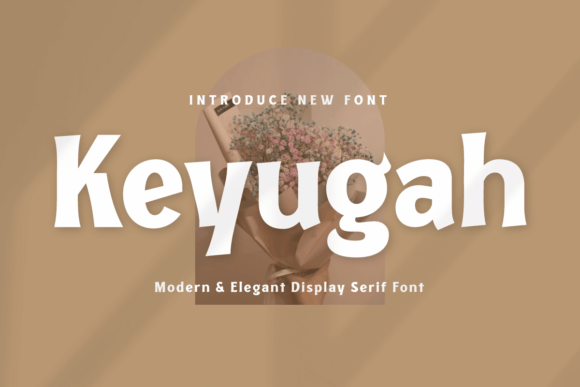
Within the realm of typography, Keyugah Font reigns supreme as a serif font of unparalleled grace and distinction. Its very essence evokes an aura of elegance, lending a touch of sophistication to any creative endeavor it adorns. Whether you seek to craft exquisite wedding invitations that exude timeless romance or aspire to elevate your branding materials with a touch of understated luxury, Keyugah stands as your steadfast companion.
This classic serif font possesses an inherent versatility that seamlessly adapts to a myriad of design projects. Its clean lines and refined serifs render it effortlessly readable, ensuring clarity and impact in both print and digital realms. With Keyugah as your chosen font, your words will dance across the page with effortless grace, captivating your audience and leaving an indelible mark on their minds.
Keyugah's enduring appeal lies in its ability to transcend fleeting trends and remain a timeless classic. Its enduring beauty ensures that your creations will stand the test of time, retaining their elegance and relevance for years to come. Embrace Keyugah and embark on a journey of creative expression that knows no bounds.
The modern curriculum vitae, a gateway to professional success, demands a font that reflects both your individuality and your aspiration for excellence. Keyugah rises to this challenge, imbuing your resume with an air of sophistication that commands attention. Its clean lines and understated elegance create a visually appealing document that showcases your skills and experience in the most flattering light. With Keyugah as your font, you'll make a lasting impression that sets you apart from the crowd and propels you towards your career goals.